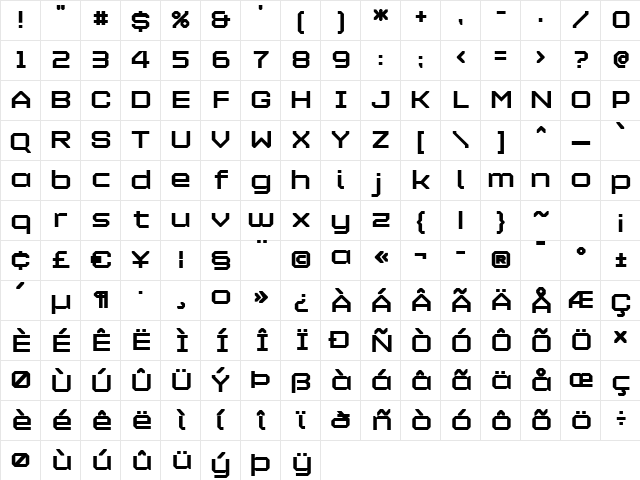
Maetl ExtraBold
ExtraBold · YouWorkForThem Michael Cina ·
DesignerMichael Cina
Design Context for Maetl Typeface
Maetl takes a measured approach to typography — its balanced proportions and neutral character make it a reliable workhorse for both digital and print work. Its bold stroke weight gives it real presence on the page.